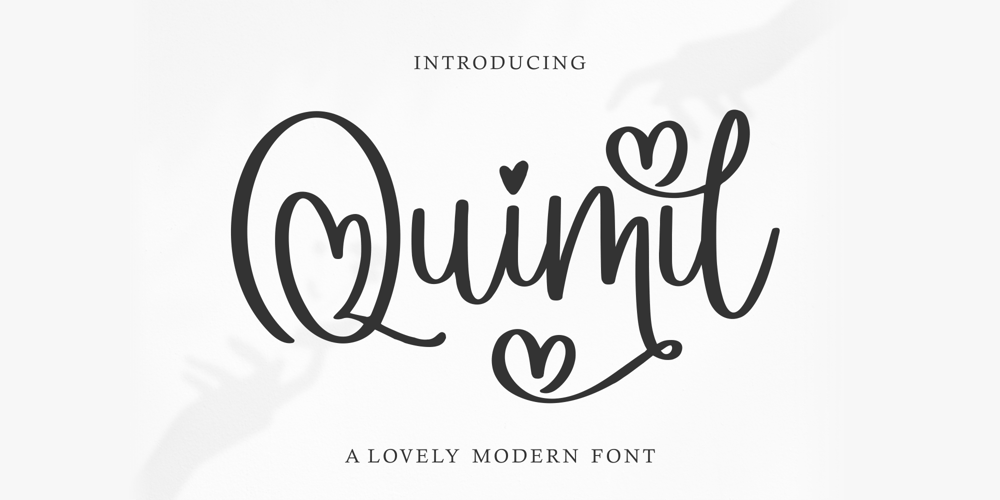
Quimil Font Family was designed by Fachrizal Yusuf and published by Allouse Studio. Quimil contains 1 styles and family package options. Proudly Presenting, Quimil A Lovely Modern Font.Quimil is perfect for any titles, logo, product packaging, branding project, megazine, social media, wedding, or just used to express words above the background.Quimil also come with Multi-Lingual-Support.Enjoy the font, feel free to comment or feedback, send me PM or email. Thank You!